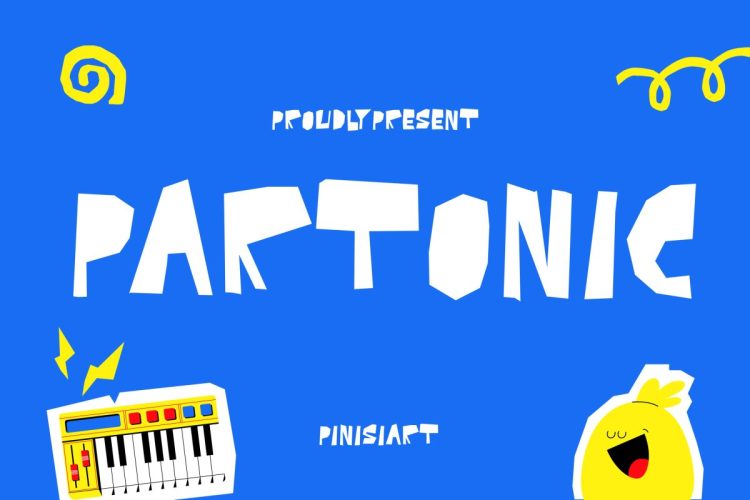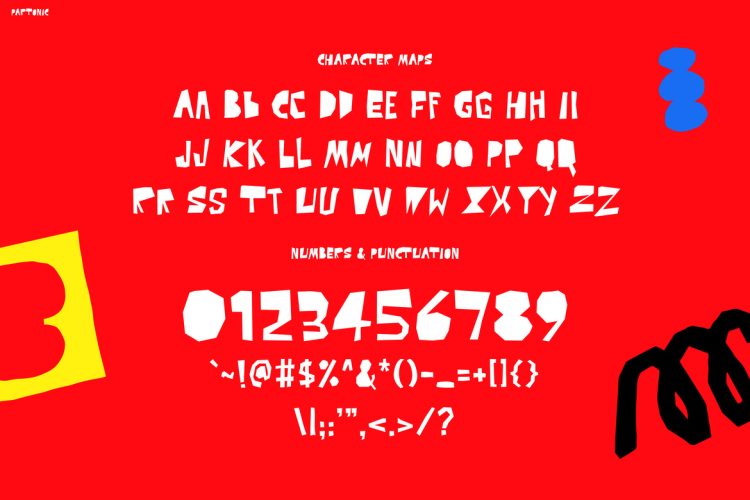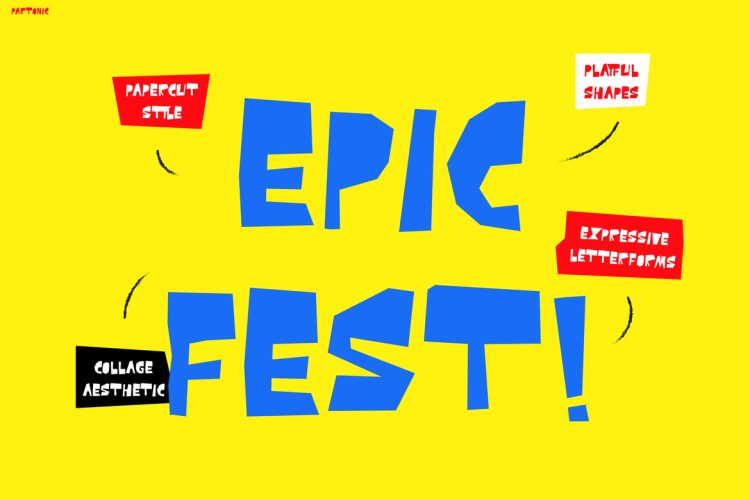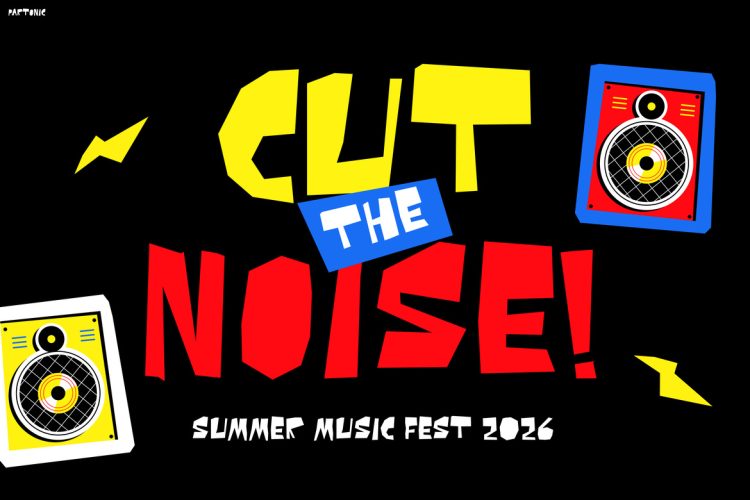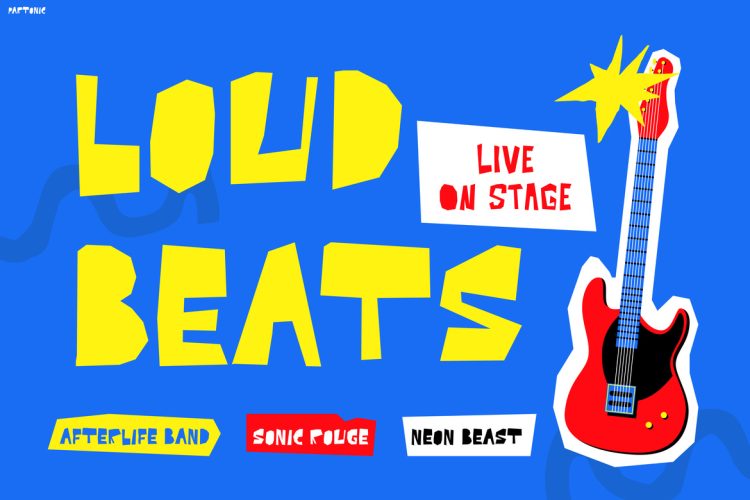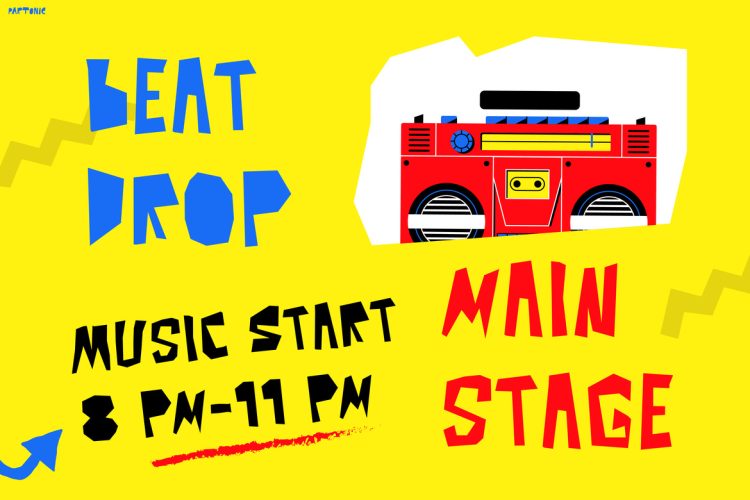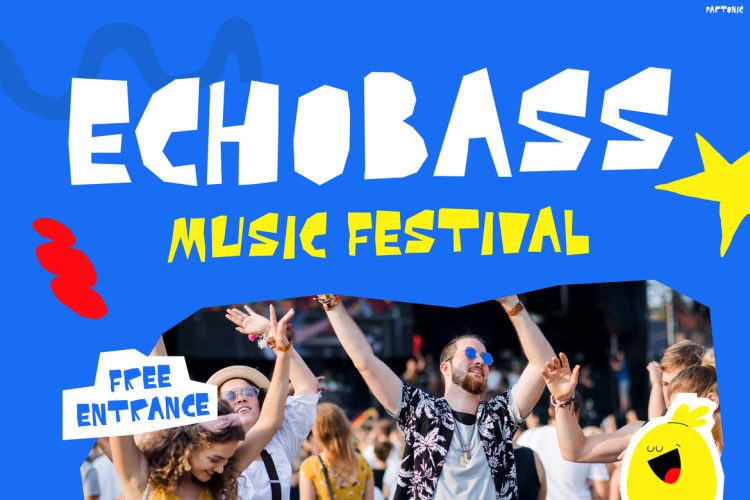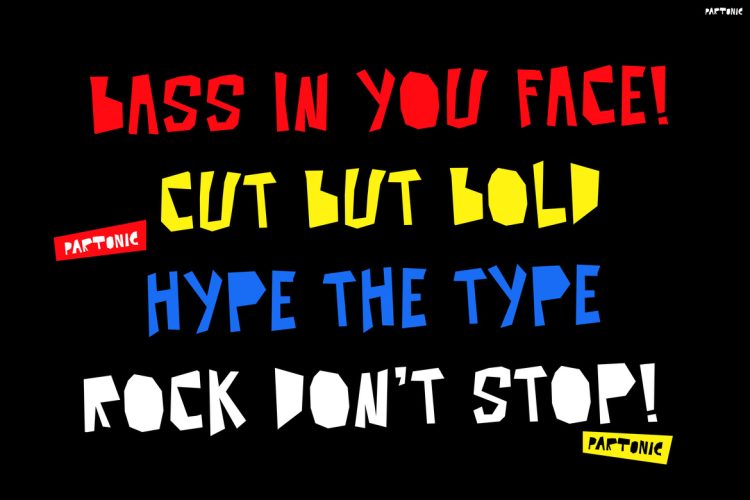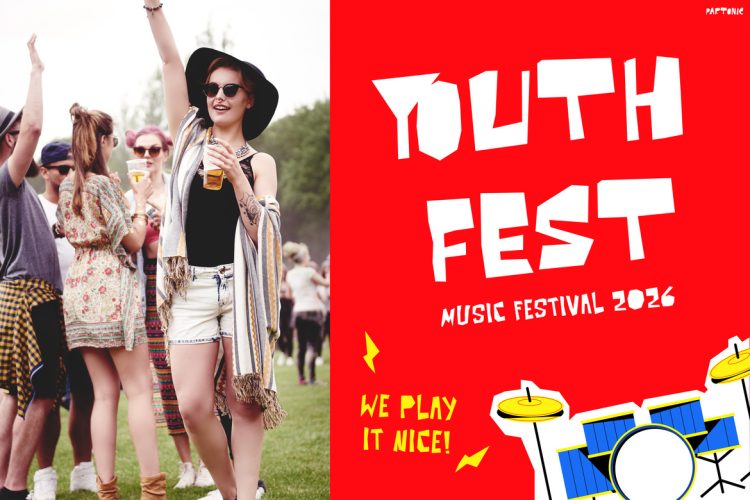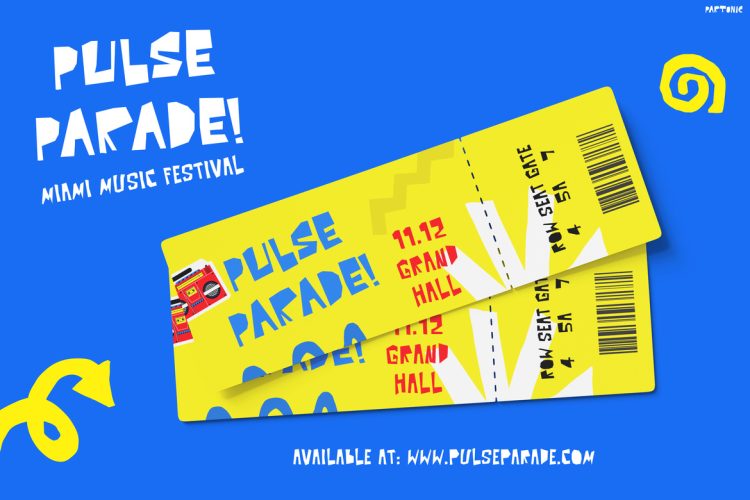
PARTONIC โ Bold Energy Music Font
Music Font PARTONIC hits hard with bold, edgy letterforms that instantly amplify your design. Moreover, its sharp, irregular shapes create a raw, energetic vibe inspired by live concerts and underground music scenes. Not only does it look loud and expressive, but it also keeps strong readability, so your message stays clear even in high-impact visuals. In addition, the dynamic style adds movement and attitude, making every layout feel alive, rebellious, and full of rhythm.
Best Use
Music Font PARTONIC is built for high-energy visuals that demand attention. For instance, it works perfectly for music festival posters, concert branding, DJ flyers, album covers, and street-style promotions. Furthermore, it shines in social media graphics, event tickets, and merchandise designs. Because of its bold personality, it fits perfectly with genres like rock, EDM, hip-hop, and indie. As a result, designers can easily create visuals that feel powerful, modern, and unforgettable.
Who Is It For?
This font is ideal for graphic designers, musicians, event organizers, and creative studios. In particular, it suits brands and individuals in the music and entertainment industry. Additionally, itโs perfect for anyone who wants to create loud, expressive, and attention-grabbing designs. Therefore, if your project needs strong character and fearless style, this font delivers.